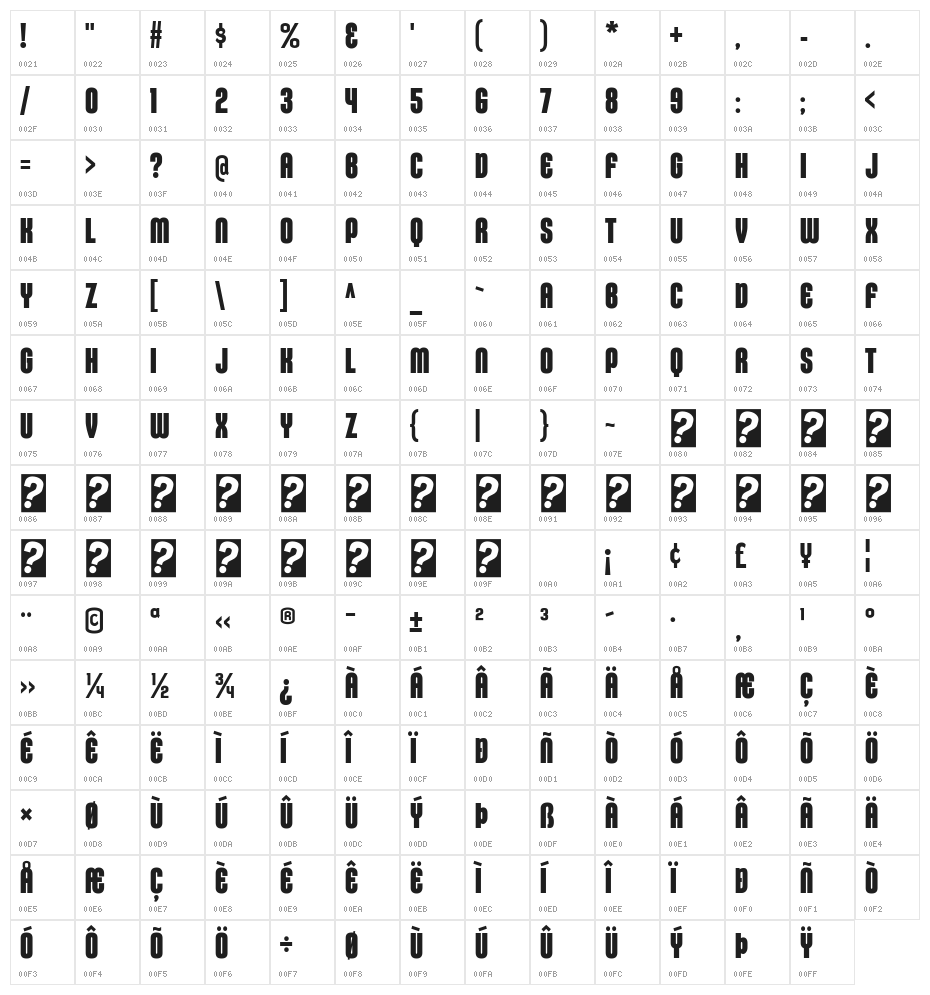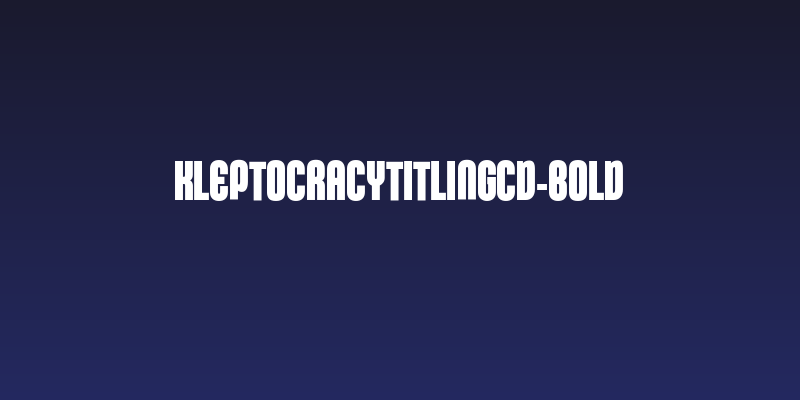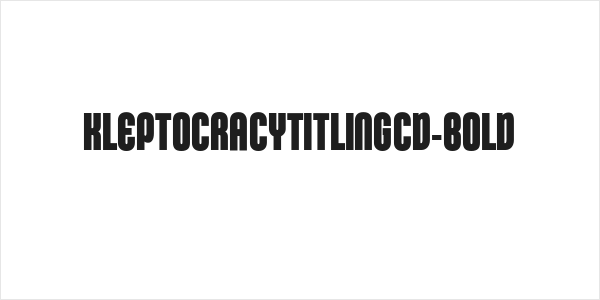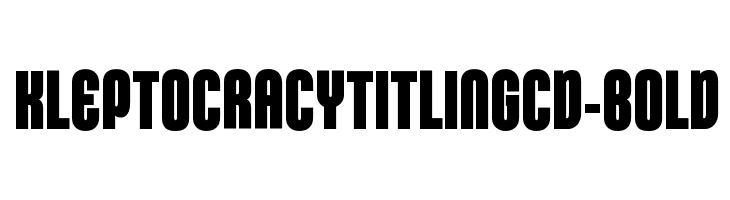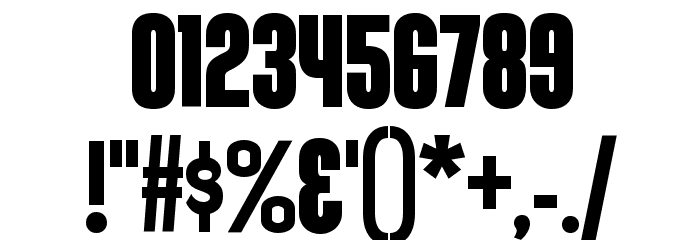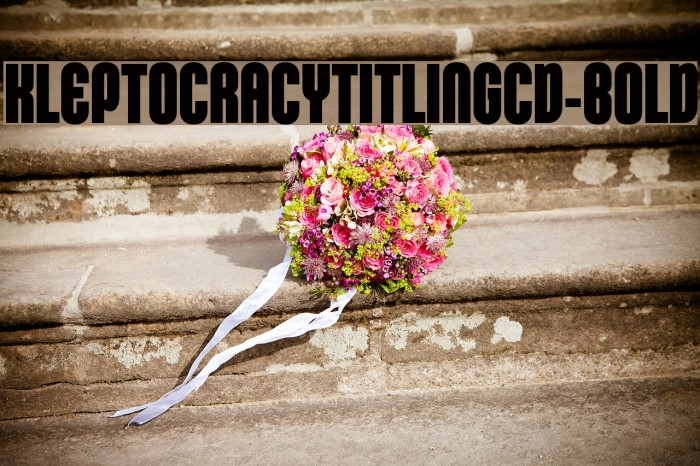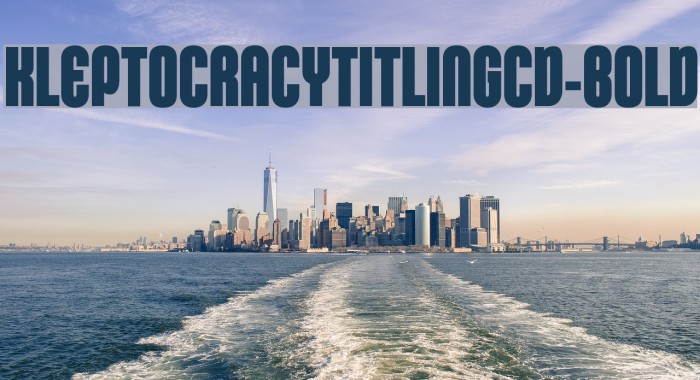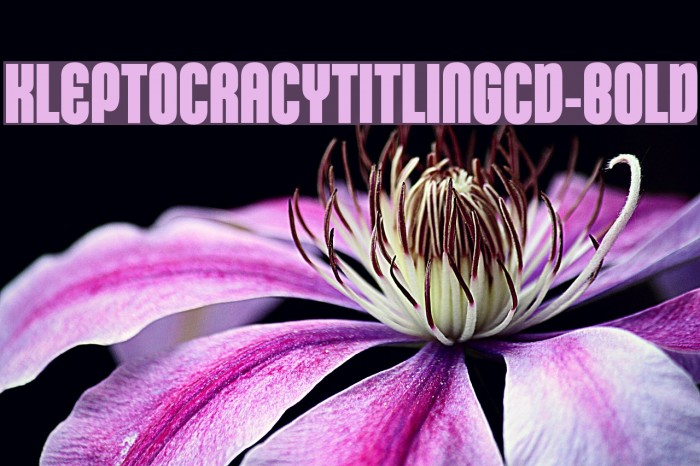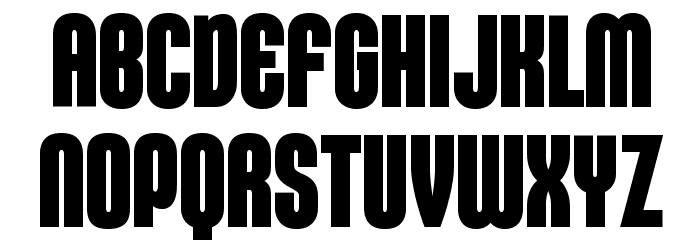
KleptocracyTitlingCd-Bold Font
KleptocracyTitlingCd-Bold Description
This font features a bold and impactful design with thick, uniform strokes that create a strong visual presence. The characters are tightly spaced, contributing to its compact and powerful appearance. The uppercase letters are particularly striking, with a geometric and modern aesthetic that emphasizes clarity and readability. The numbers and special characters maintain the same boldness, ensuring consistency across all elements. This font is ideal for making a statement, with its high contrast and solid structure.
| Proposed Projects | Ideal for headlines, posters, branding, and any design requiring a strong visual impact. |